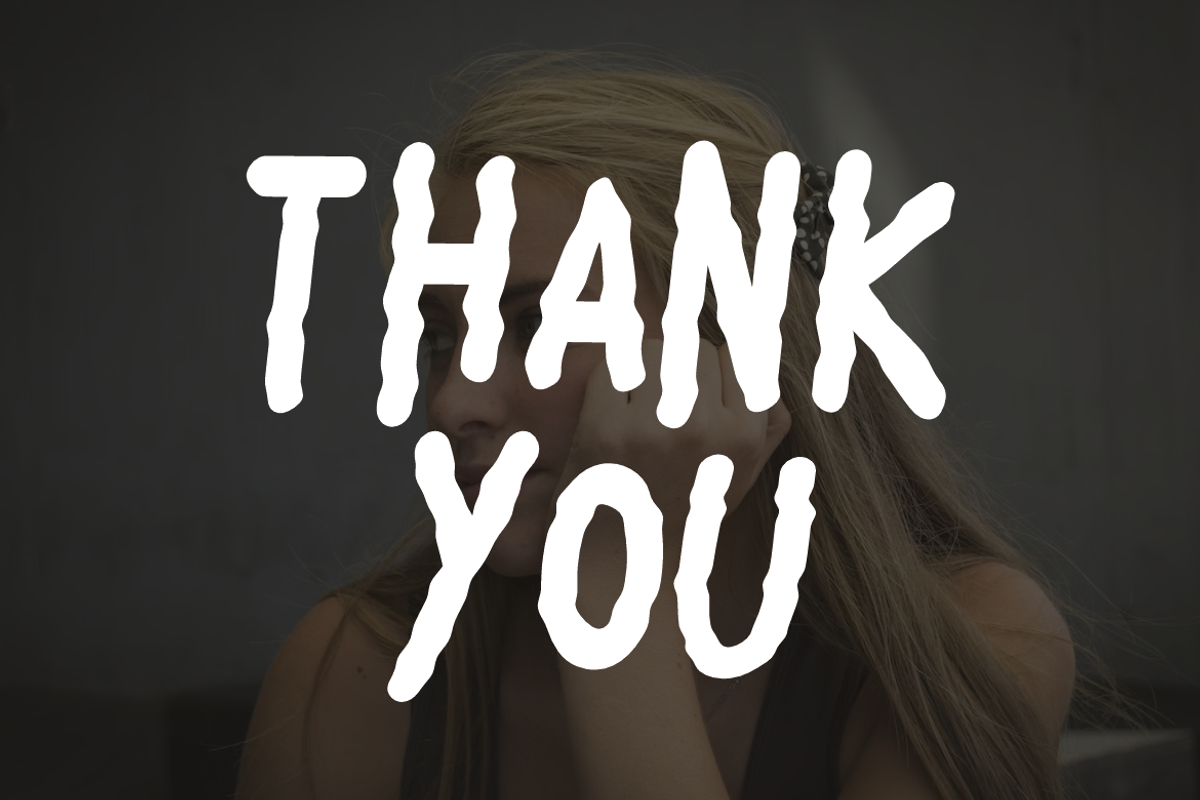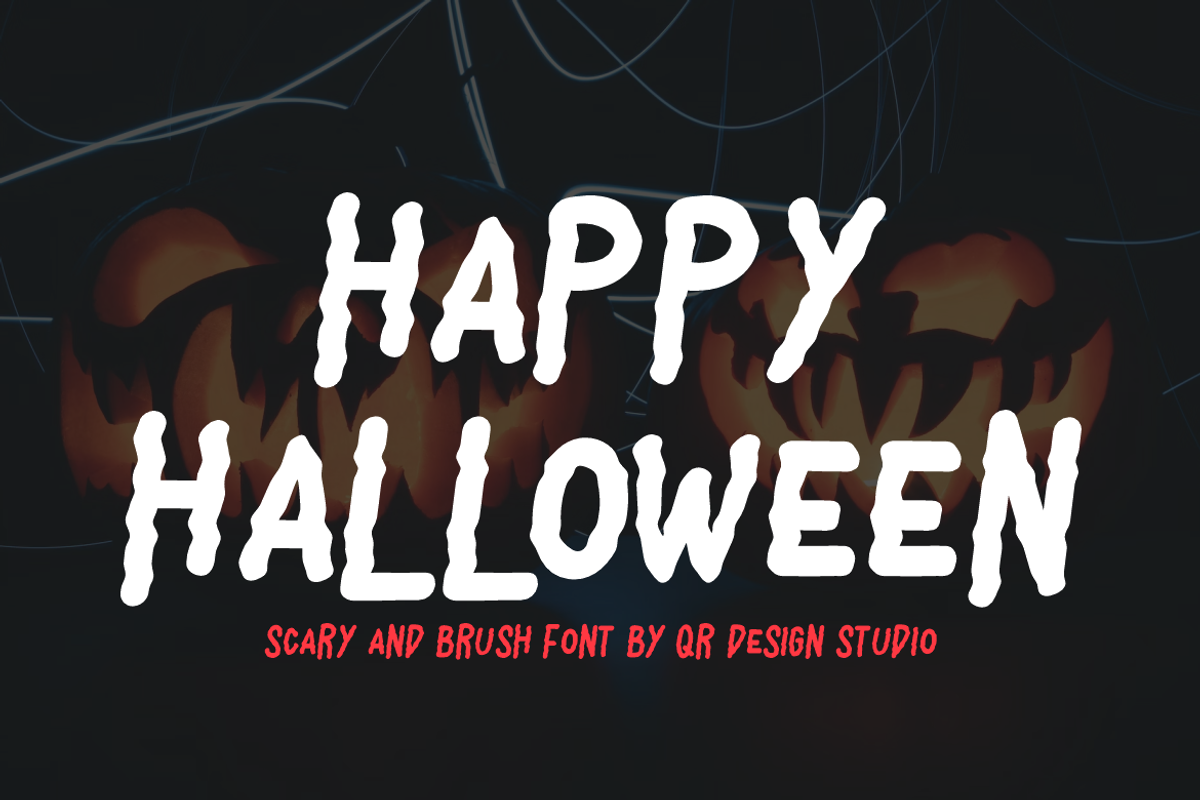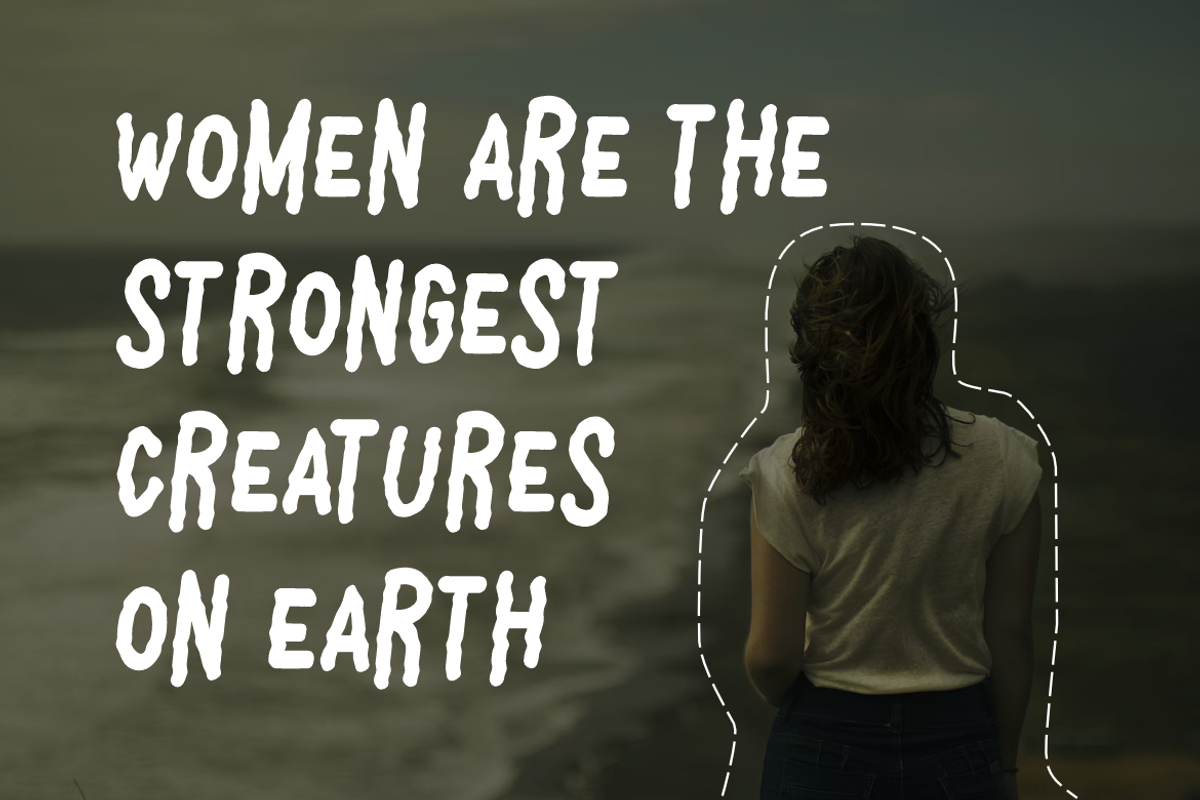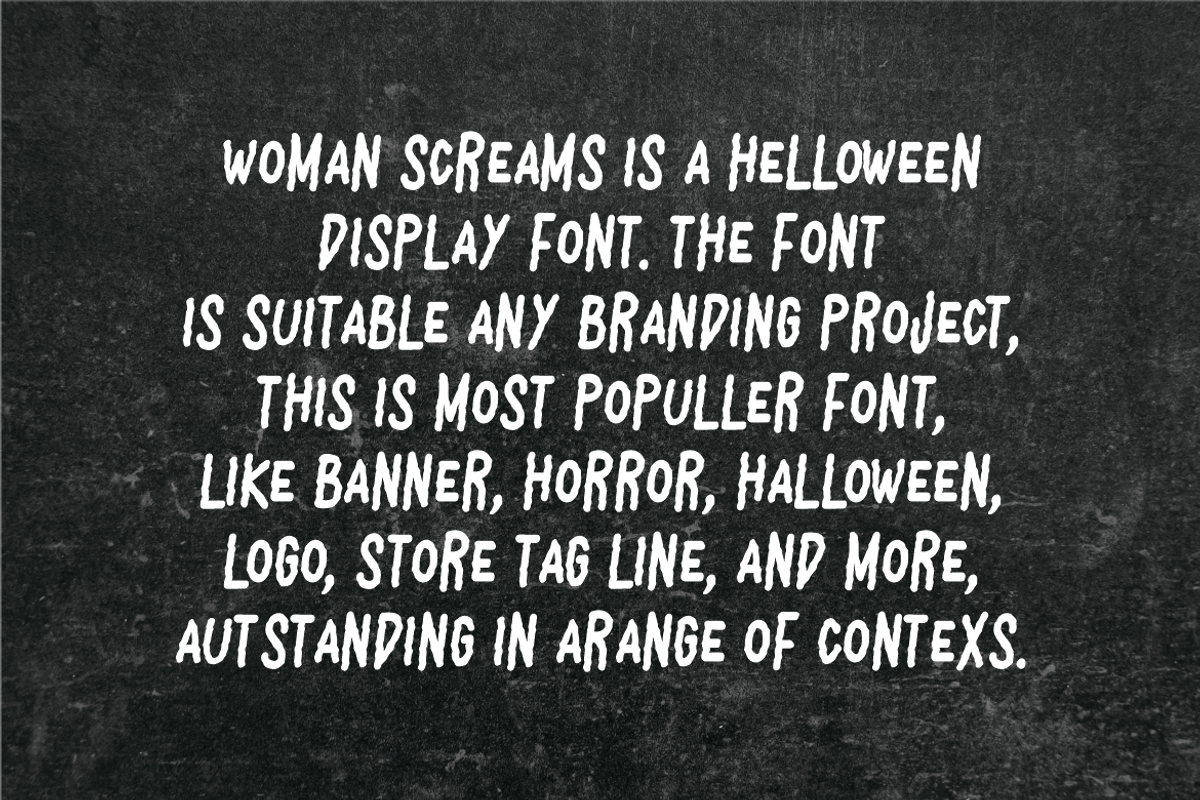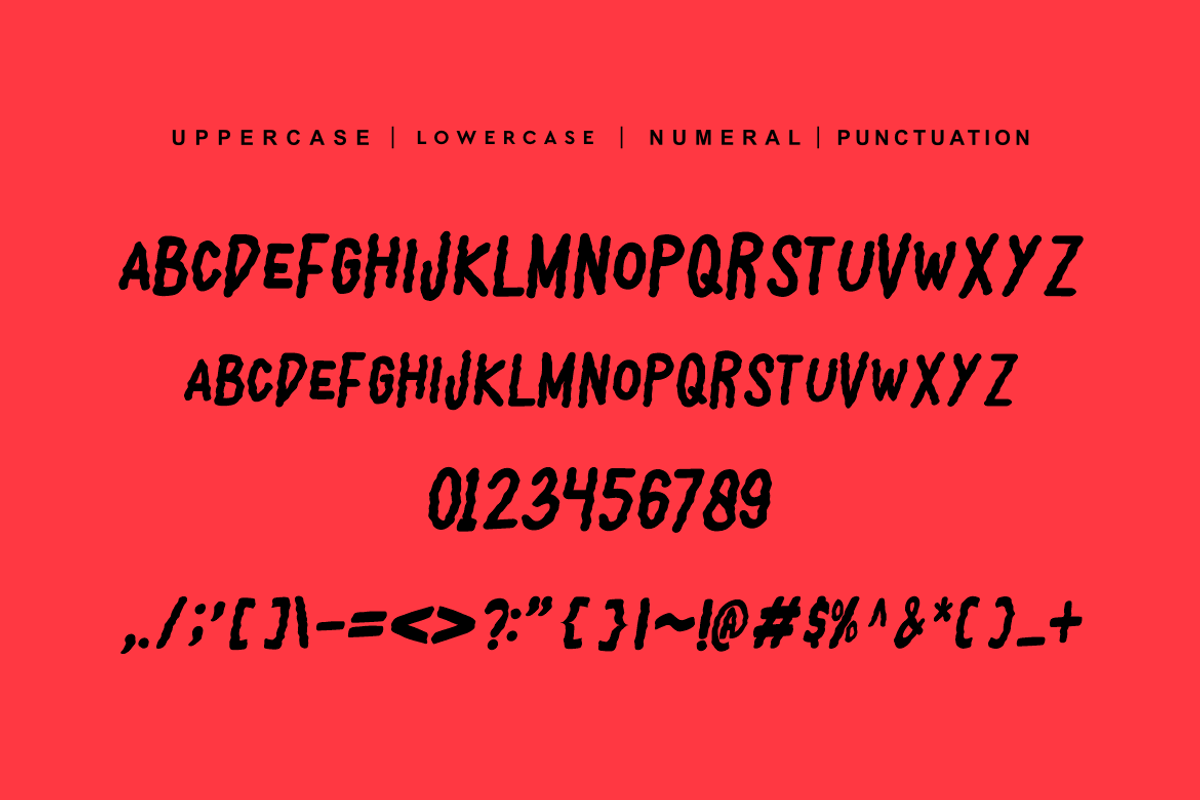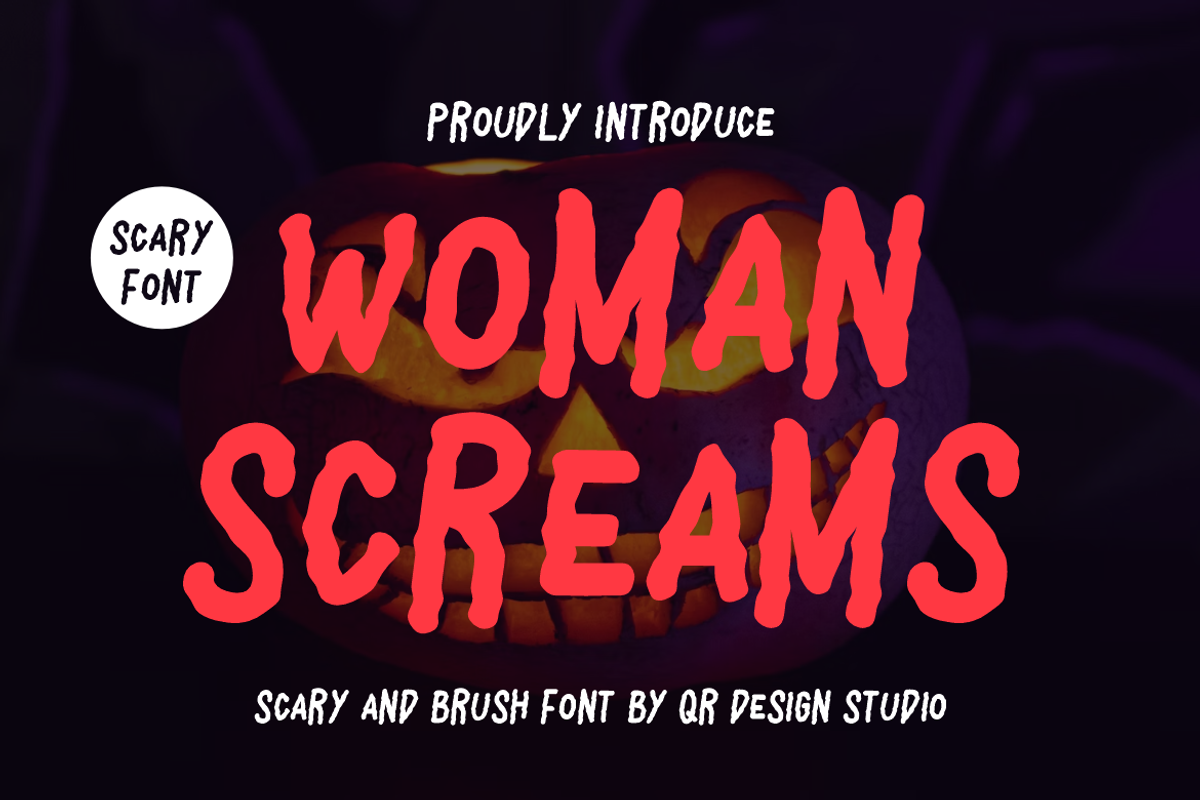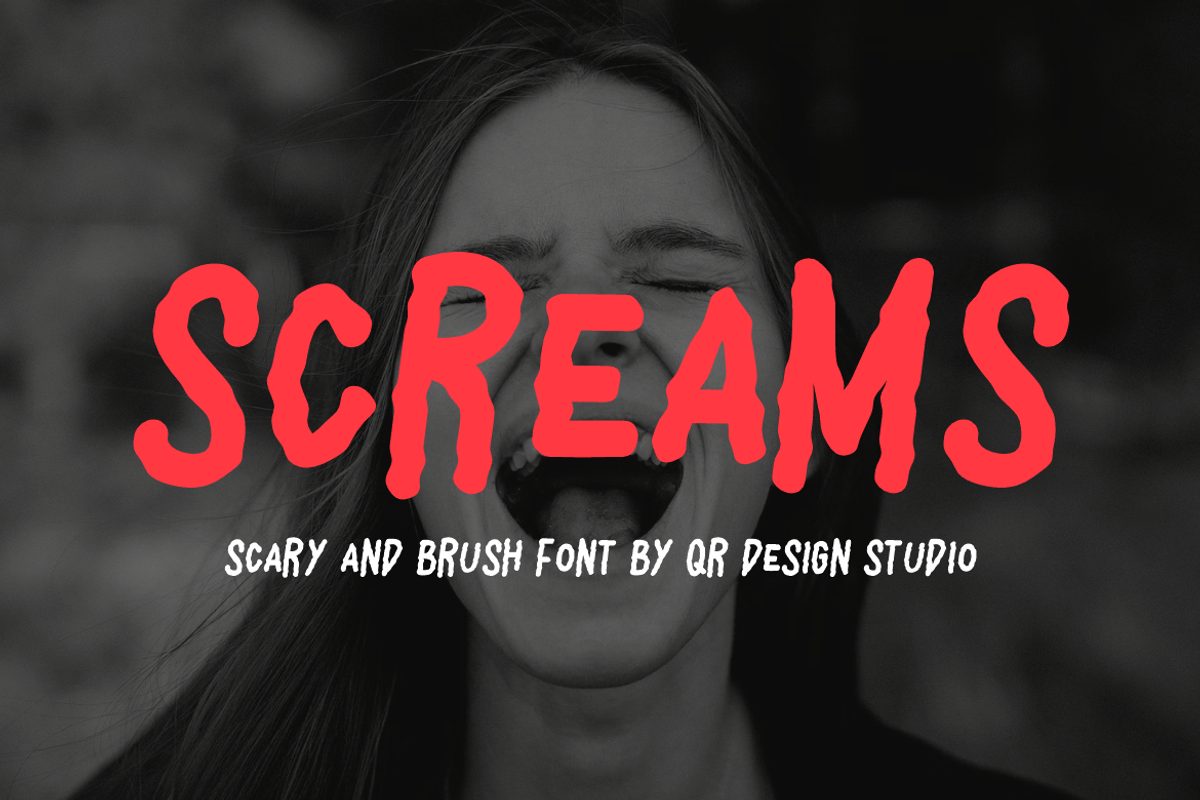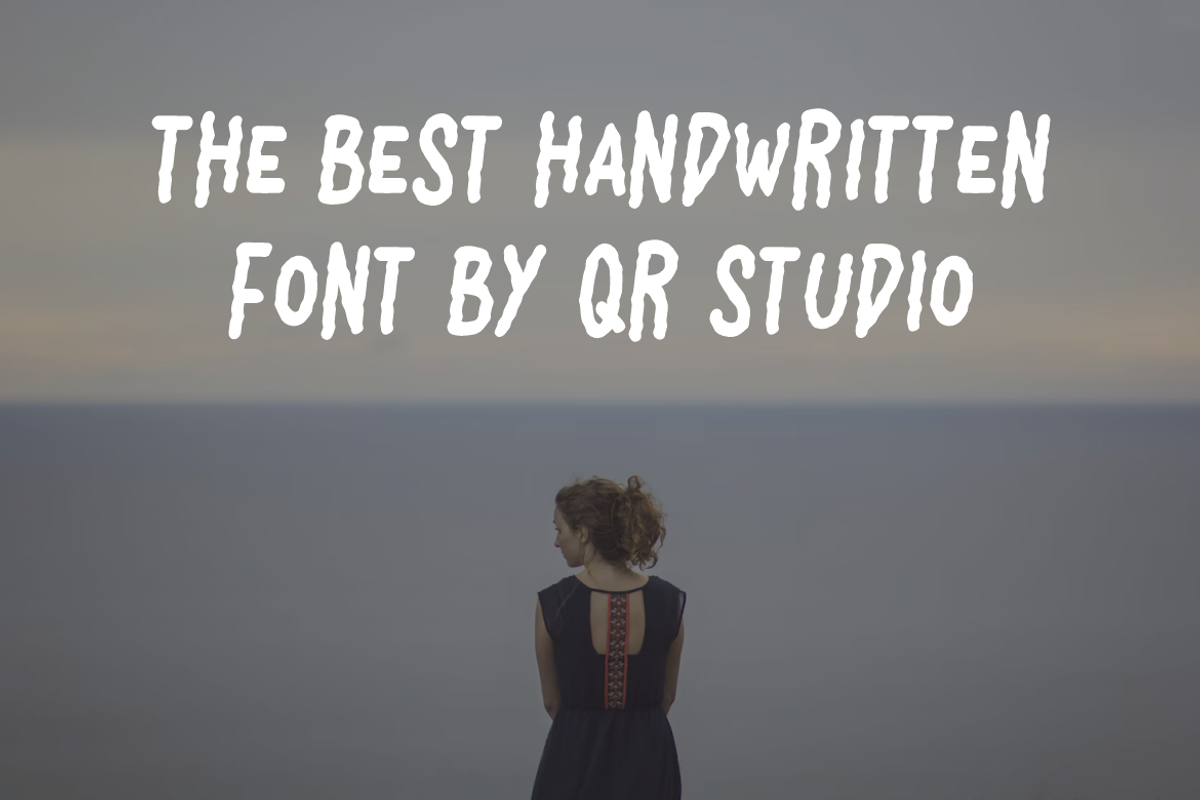
Woman Screams - Horror Font
Woman Screams Font is a bold and authentic display font. The font is suitable for any branding project like logo, halloween, poster, food, and many more. Outstanding in a wide range of contexts.